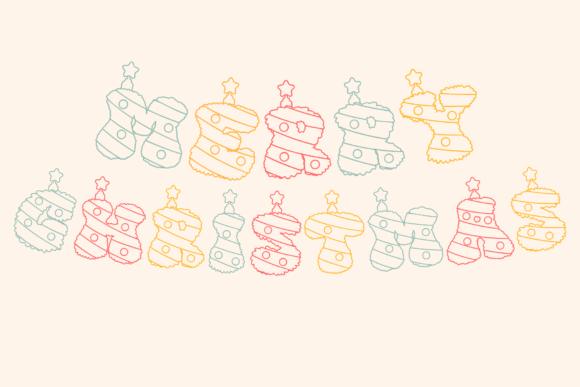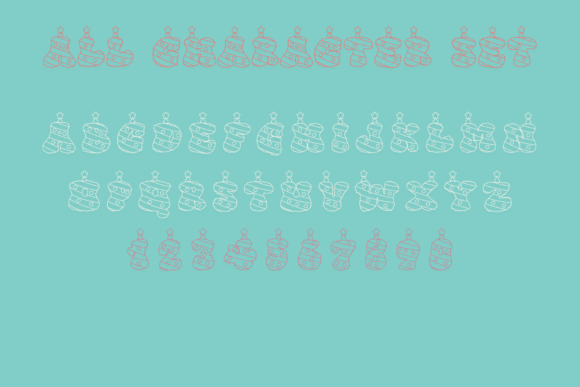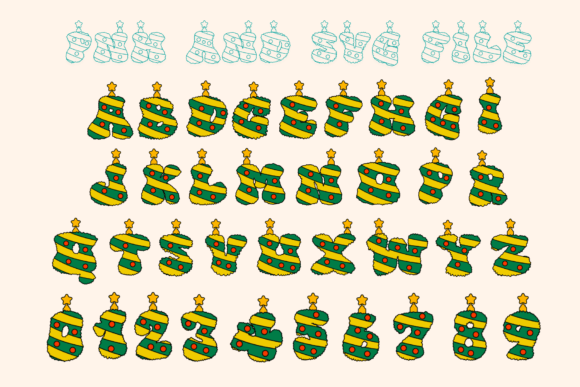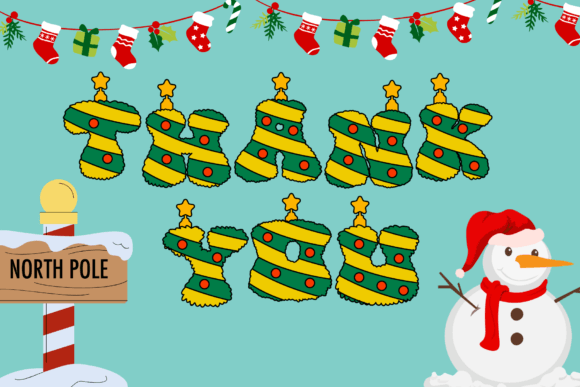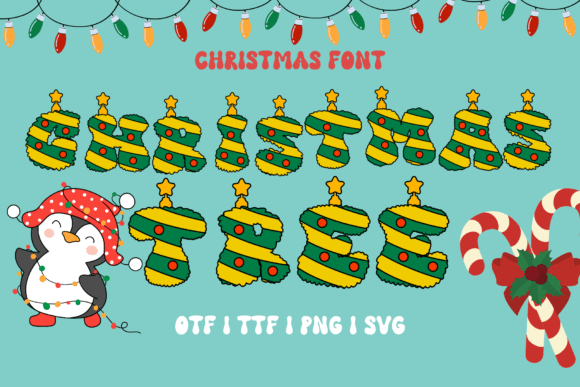
Deck the Halls with the Festive Christmas Tree Font
Are you looking for a font that captures the magic and playfulness of Christmas? Look no further than the Christmas Tree Font! This adorable decorative font is perfect for adding a touch of festive fun to your designs, and we’re excited to share all the ways you can use it to make your projects merry and bright.
What is the Christmas Tree Font?
The Christmas Tree Font is a unique and charming font that embodies the spirit of Christmas. With its playful and authentic design, it’s the perfect choice for anyone looking to add some holiday cheer to their projects. Whether you’re a designer, crafter, or blogger, this font is sure to bring a smile to your face and get you in the holiday mood.
Uses for the Christmas Tree Font
The Christmas Tree Font is incredibly versatile, and can be used in a wide range of projects. Here are just a few ideas to get you started:
- Blog Posts: Add a touch of festive fun to your holiday blog posts with the Christmas Tree Font. Use it to title your posts, create headings, or even add a fun and playful tone to your writing.
- Logos and Branding: Create a memorable and festive logo for your business or brand with the Christmas Tree Font. Perfect for holiday promotions, seasonal products, or even a winter-themed rebrand.
- Ads and Invitations: Make your holiday ads and invitations stand out with the Christmas Tree Font. Use it to create eye-catching headlines, add a playful tone to your messaging, or even create festive graphics.
- Greeting Cards and Planners: Add a personal touch to your holiday greeting cards and planners with the Christmas Tree Font. Perfect for creating custom designs, adding festive flair to your layouts, or even creating handmade cards.
- Photo Albums and Decorations: Use the Christmas Tree Font to add a touch of festive fun to your holiday photo albums and decorations. Create custom titles, add playful captions, or even use it to create festive signs and banners.
Why Choose the Christmas Tree Font?
So why choose the Christmas Tree Font for your holiday projects? Here are just a few reasons:
- Playful and Authentic: The Christmas Tree Font embodies the playful and authentic spirit of Christmas, making it perfect for adding a touch of festive fun to your designs.
- Versatile: The Christmas Tree Font is incredibly versatile, and can be used in a wide range of projects, from blog posts and logos to ads and invitations.
Tips for Using the Christmas Tree Font
Here are a few tips for getting the most out of the Christmas Tree Font:
- Experiment with Colors: The Christmas Tree Font looks great in a range of colors, from traditional red and green to more modern shades like blue and silver.
- Mix and Match: Don’t be afraid to mix and match the Christmas Tree Font with other fonts and design elements to create a unique and eye-catching look.
- Have Fun: Most importantly, have fun with the Christmas Tree Font! It’s a playful and festive font that’s perfect for adding a touch of holiday cheer to your designs.
The Christmas Tree Font is a fun and festive font that’s perfect for adding a touch of holiday cheer to your designs. With its playful and authentic design, it’s the perfect choice for anyone looking to create festive and engaging projects. Whether you’re a designer, crafter, or blogger, we hope this article has given you some inspiration for using the Christmas Tree Font in your holiday projects. So go ahead, get creative, and deck the halls with the festive Christmas Tree Font!